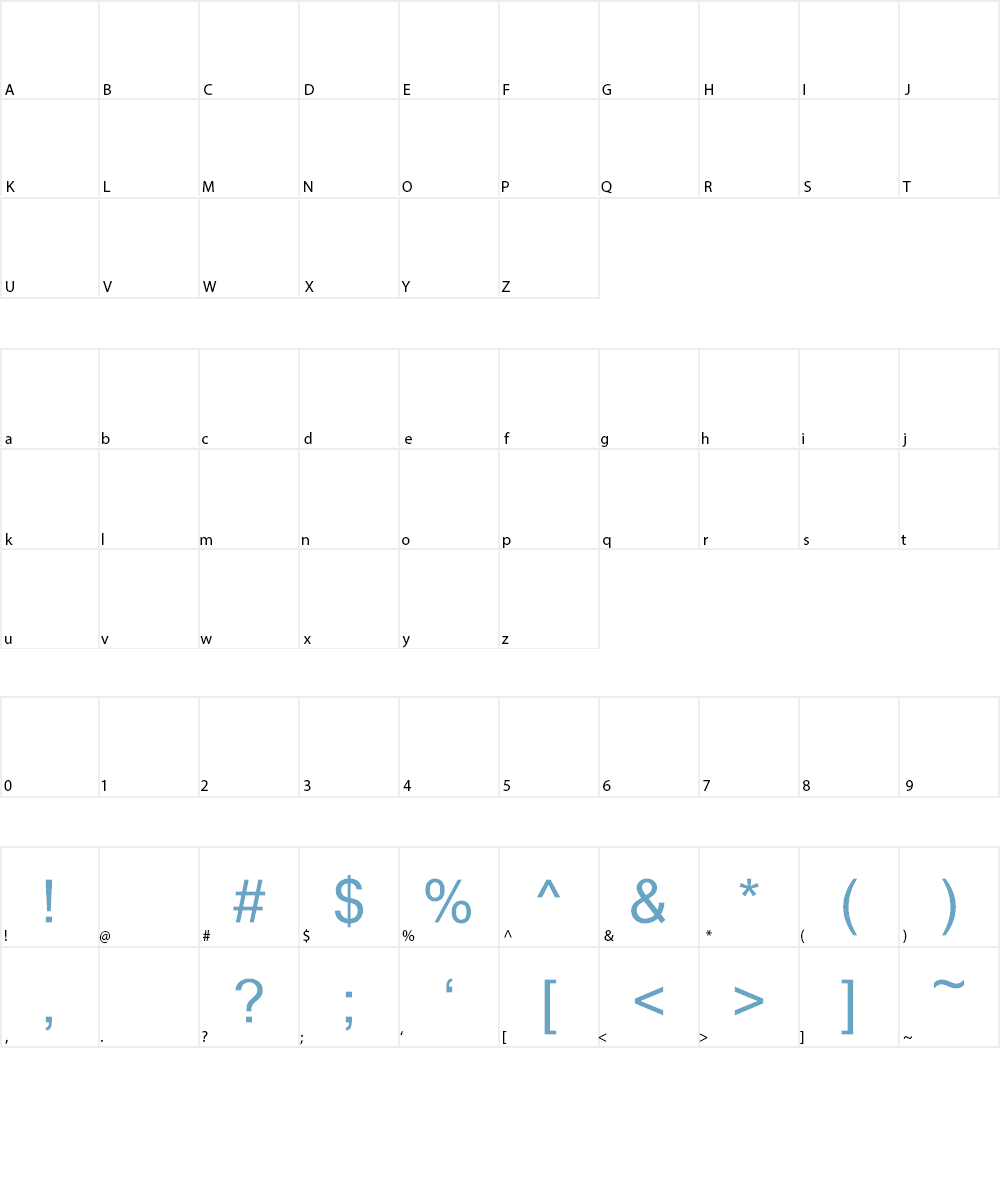
HFF Whirly Whorl is based on Whitestone Scrawl found on
page 100 of "Showcard Alphabets: 100 Complete Fonts" by
Dan X. Solo and published by Dover Publications in 1996.